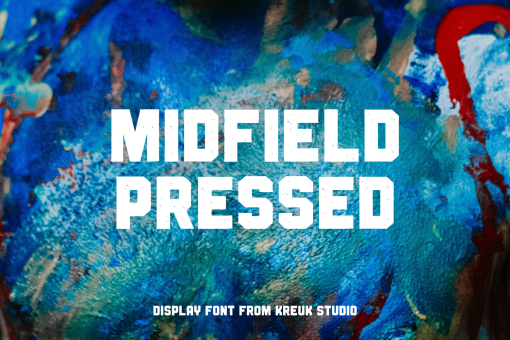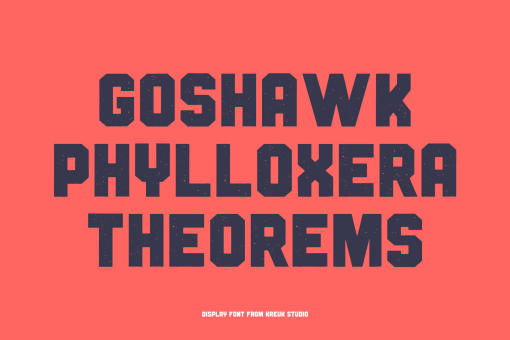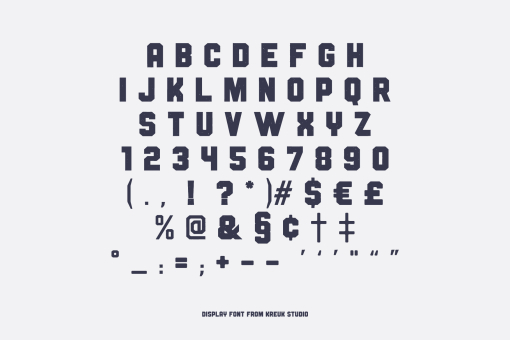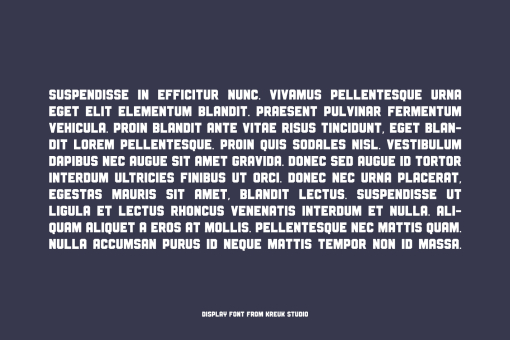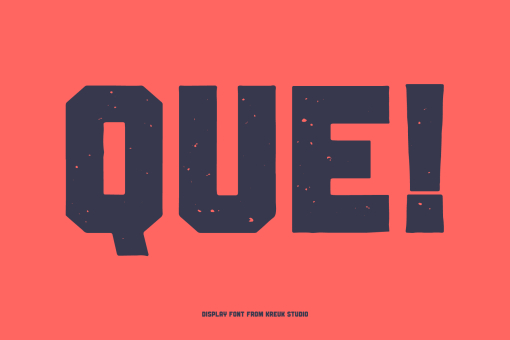
Midfield Pressed
Introducing Midfield Pressed Font. Midfield Pressed is part of Midfield Display Family. Midfield Pressed is All Caps textured display typeface with urban, sporty, rough & bold character. Each glyph is very well suited to make an interesting quote, headline & striking poster design. This font is perfect for logos, badges, clothing, signage, posters, and much more!